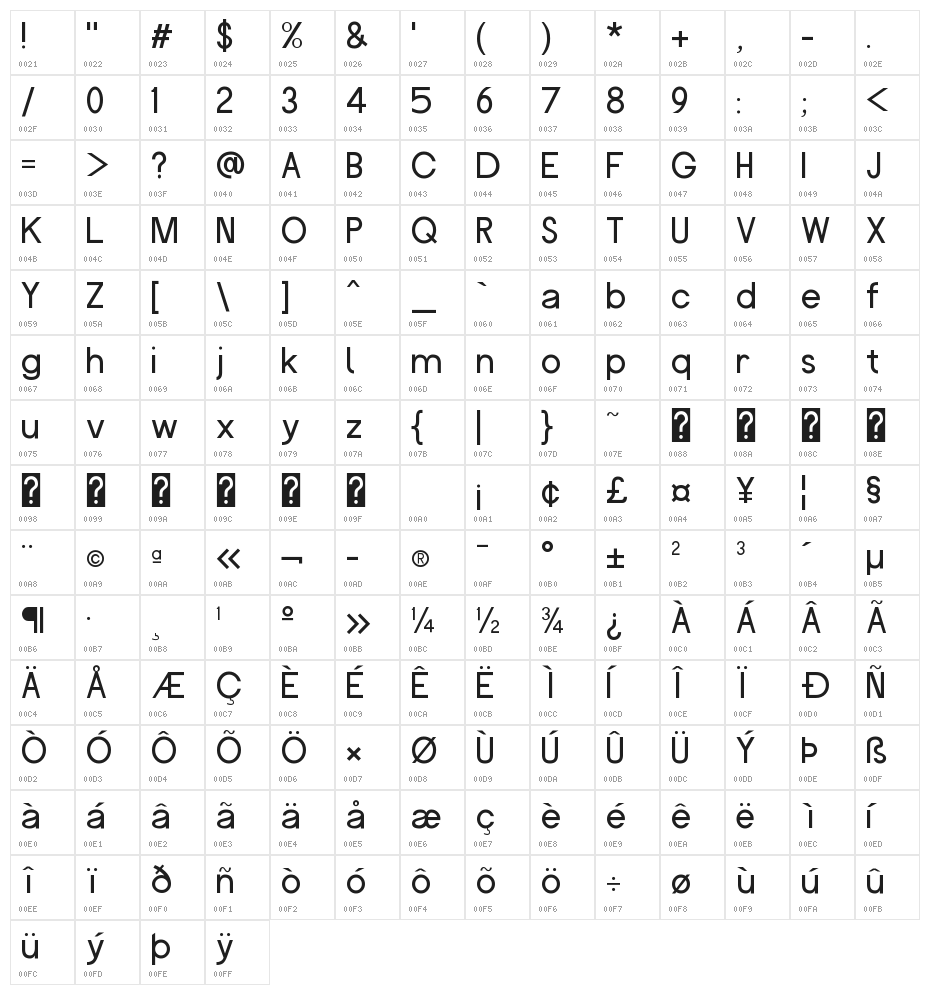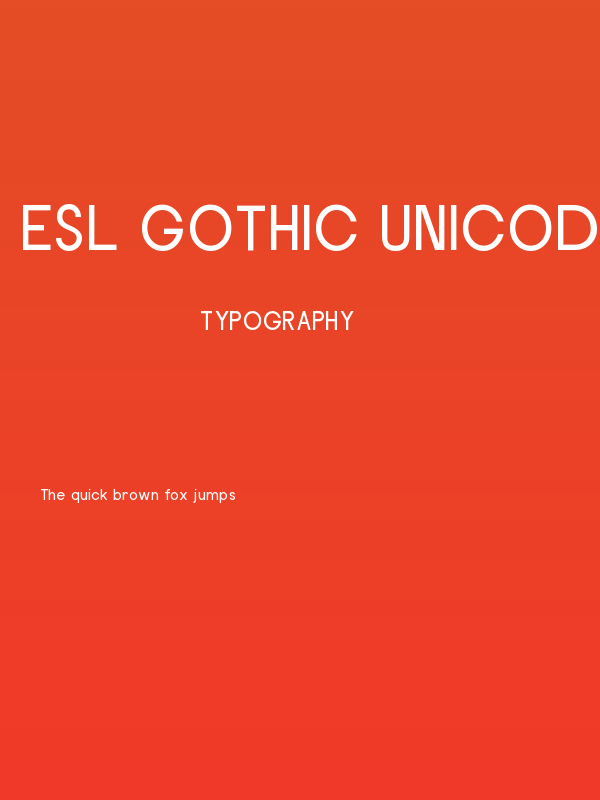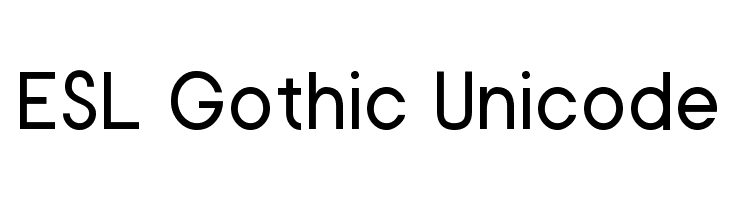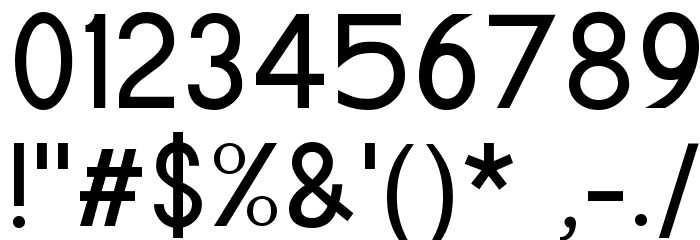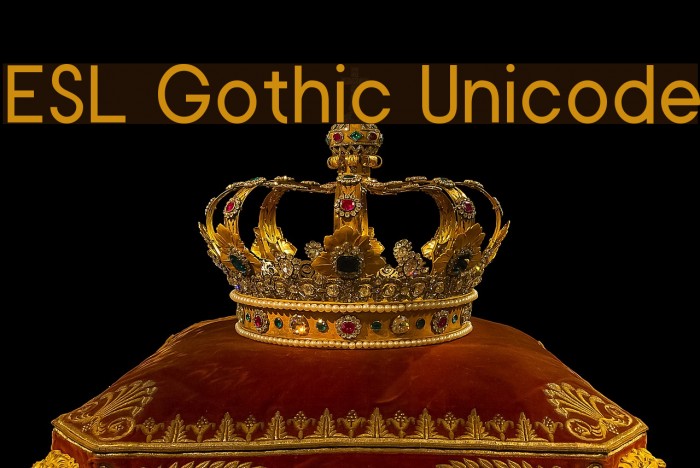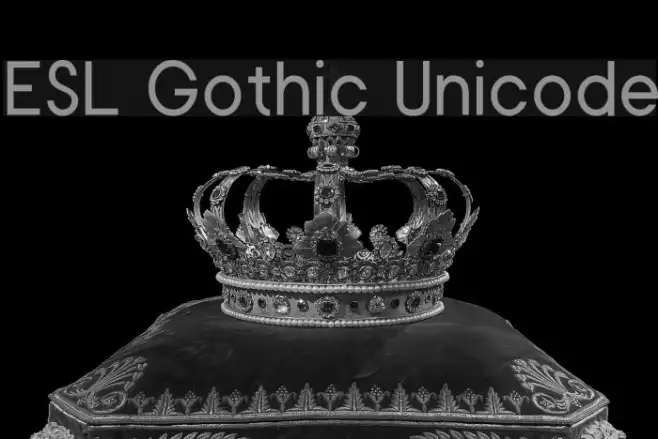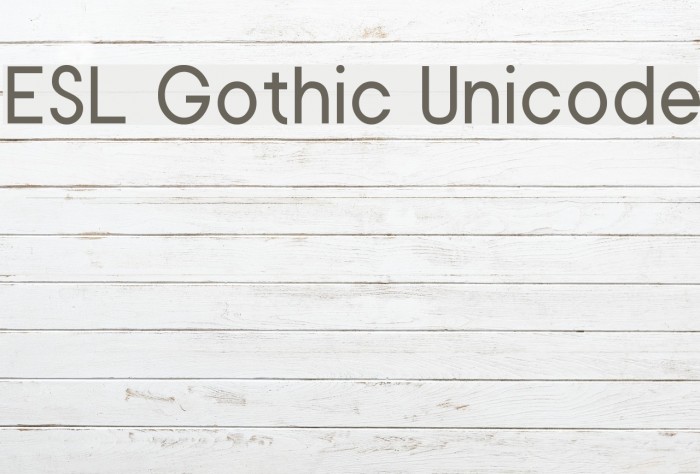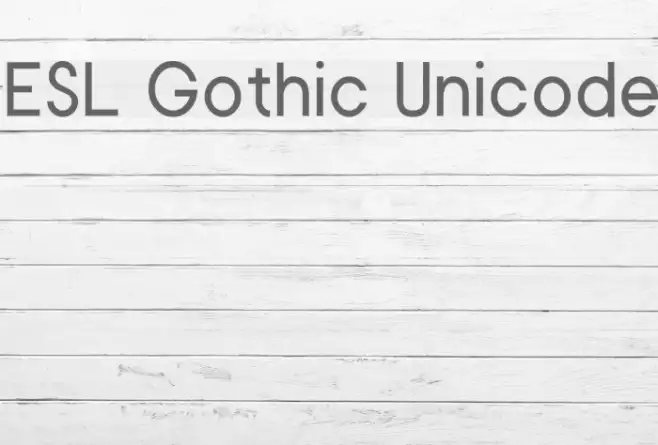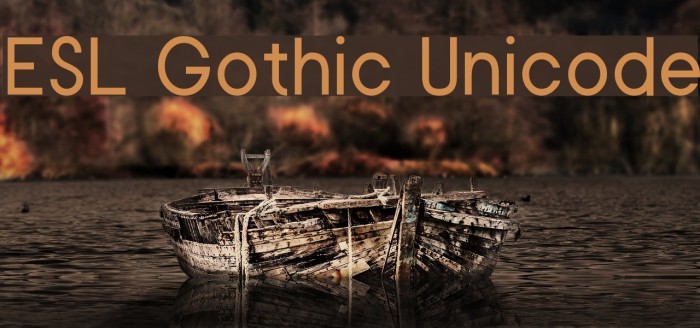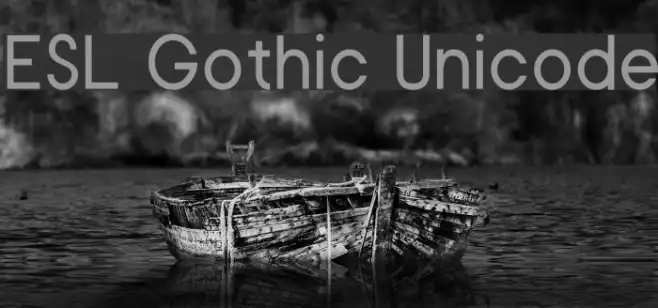
ESL Gothic Unicode Font
ESL Gothic Unicode Description
This font features a clean and modern sans-serif design, characterized by its geometric shapes and uniform stroke widths. The uppercase letters are bold and assertive, while the lowercase letters maintain a balanced and approachable appearance. The numerals are clear and easy to read, making them suitable for a variety of applications. Special characters are well-defined, adding to the font's versatility. The overall style is minimalistic, with a focus on clarity and legibility, making it ideal for both digital and print media.
| Proposed Projects | Ideal for branding, web design, advertising, and editorial projects where clarity and modernity are key. |